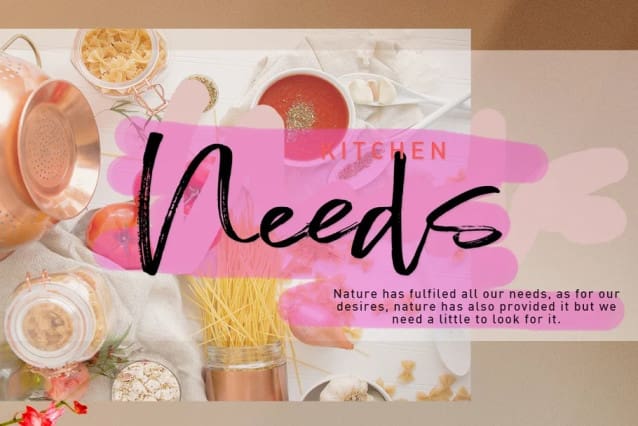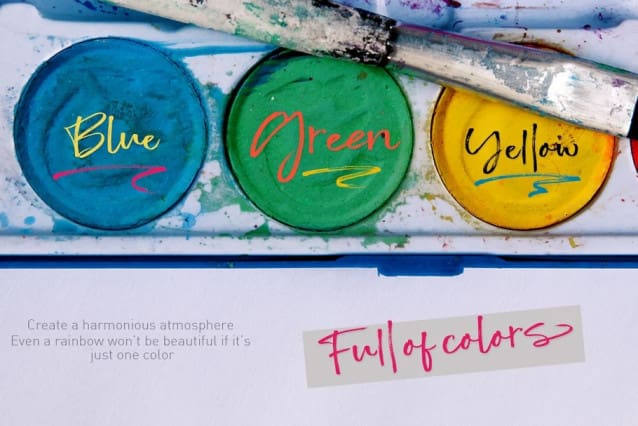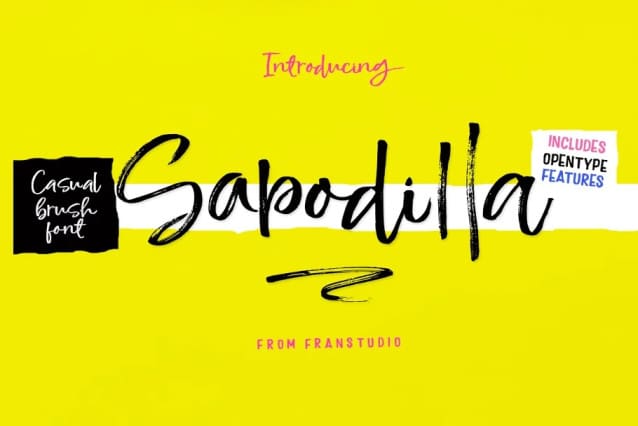
Sapodilla Brush Font
Sapodilla Brush Font is a new, very interesting brushed font. This font family is perfect for branding projects, logos, product packaging, posters, invitations, greeting cards, news, blogs, everything including personal charm and more.
Sapodilla offers OpenType features, some ligatures and swashes, initial and terminal letters, and International support for most Western Languages.